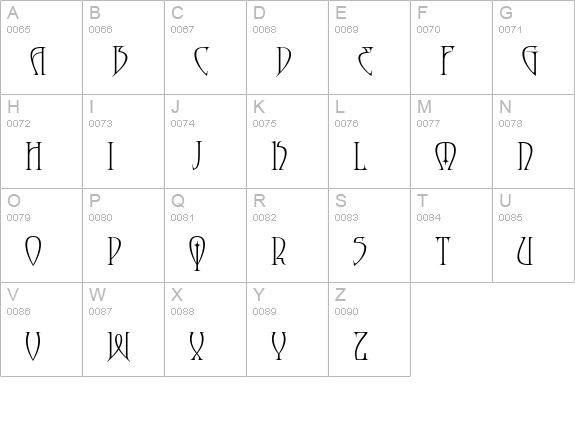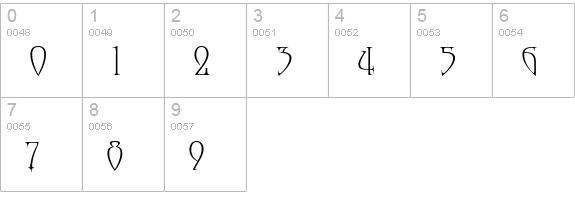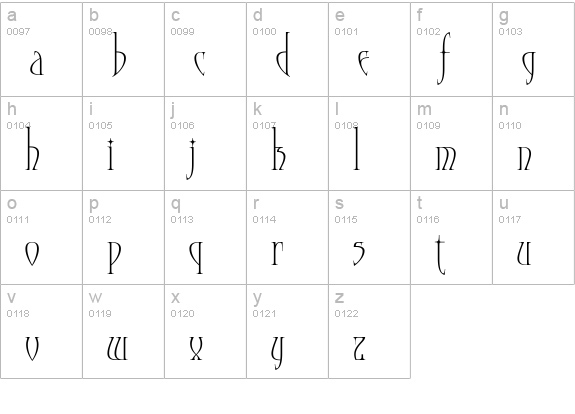
Moonstone Font Details
Moonstone is a beautifully crafted and elegant font that exudes a sense of sophistication and charm. With its sleek lines and graceful curves, Moonstone is perfect for adding a touch of class to any project. This versatile font can be used for a variety of design purposes, from invitations to branding to editorial layouts. What sets Moonstone apart is not only its timeless design, but also the fact that it is completely free to download. That's right, you can access this stunning font at no cost on FontsMarket.com. Whether you're a professional designer looking for a new addition to your font collection or a hobbyist seeking to elevate your creative projects, Moonstone is the perfect choice. Download Moonstone today and let its beauty and elegance elevate your designs to the next level.